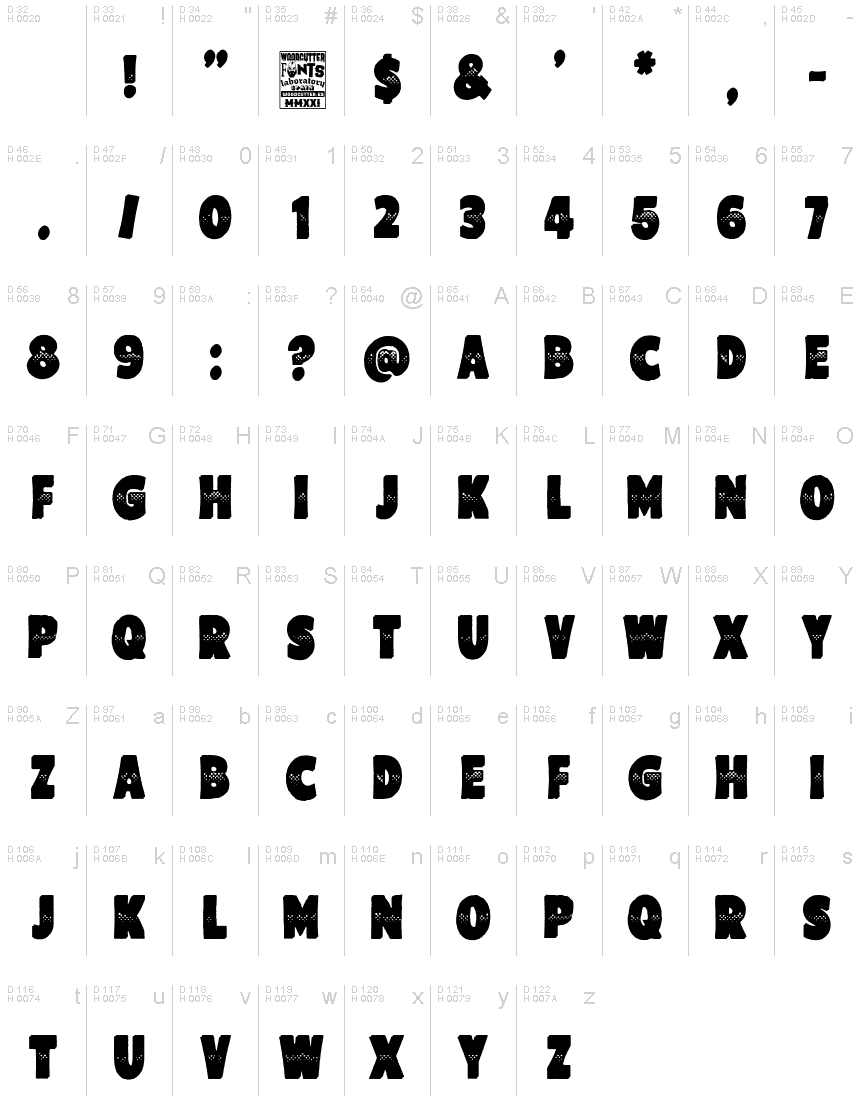
Violent Bunny
The Violent Bunny font by Woodcutter is a bold display typeface with an edgy eroded style that's perfect for projects that need a touch of rebellion. Its extra-bold weight and semi-condensed width make it ideal for headlines, posters, album covers, and other designs that demand attention. Whether you're creating graphics for a music festival, designing a logo for a skateboarding brand, or adding some attitude to your social media posts, Violent Bunny will give your work the punch it needs. So go ahead and let your inner rebel out with this fierce font!